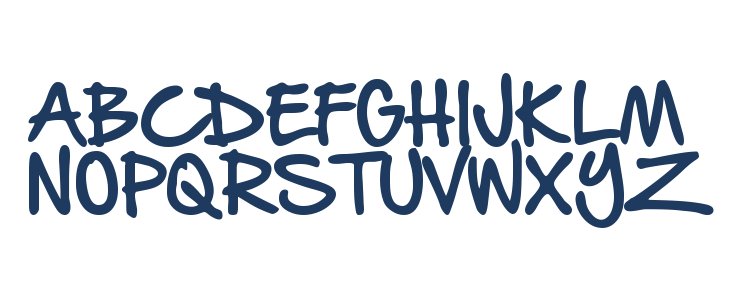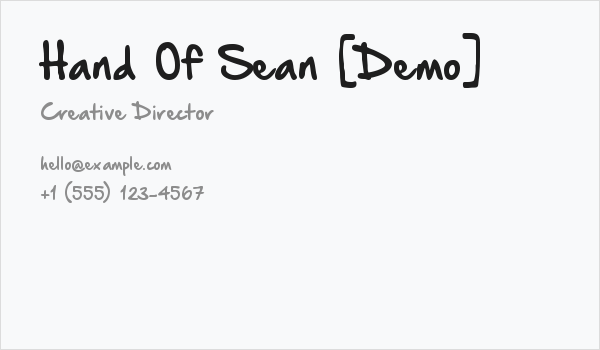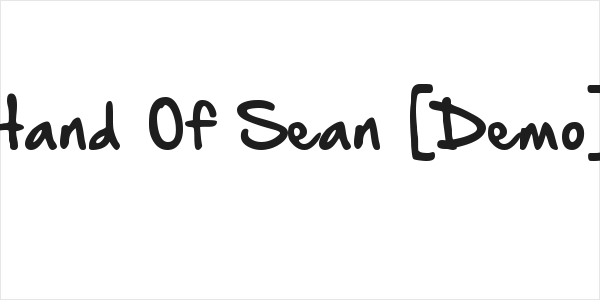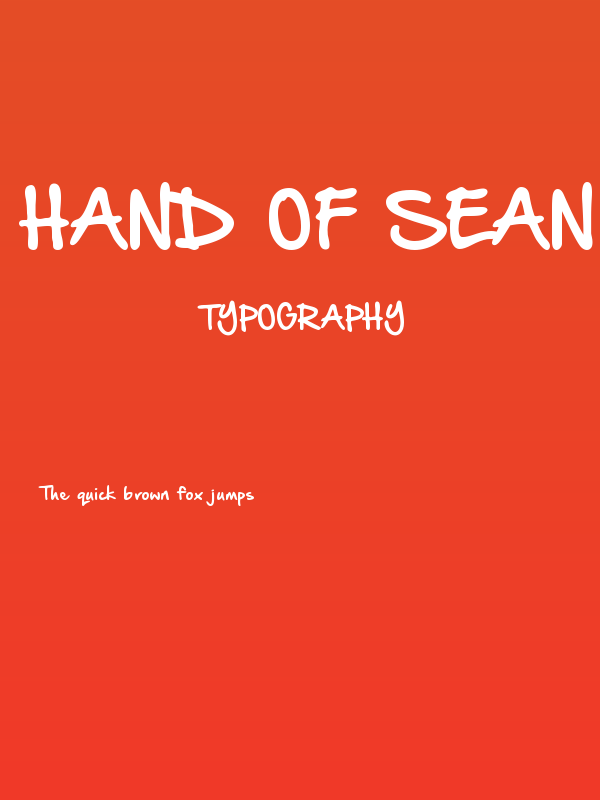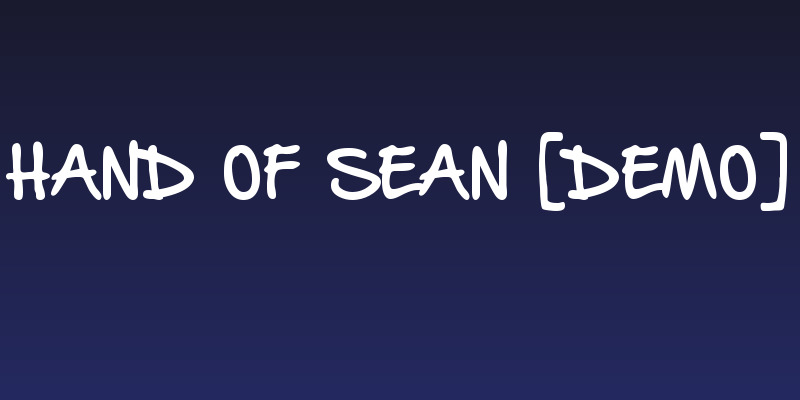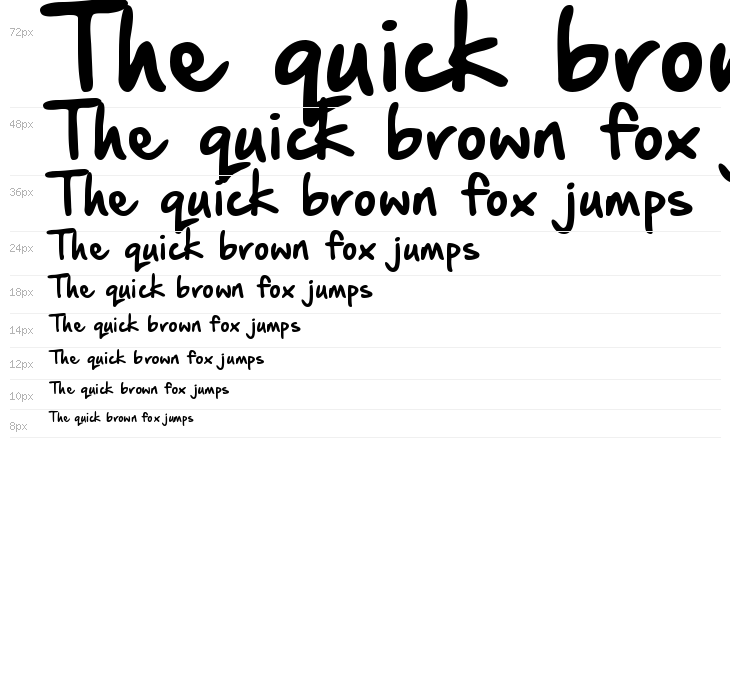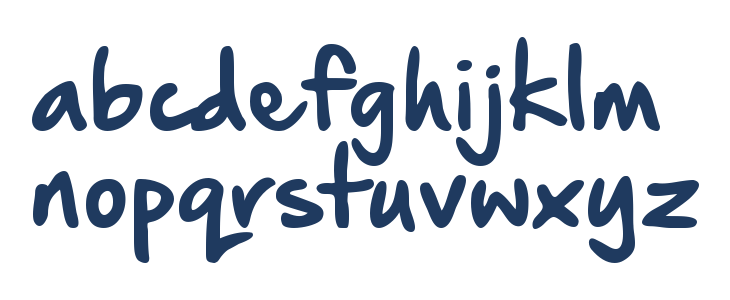
Hand Of Sean [Demo] Font
Hand Of Sean [Demo] Description
This font exudes a playful and casual handwritten style, characterized by its bold and rounded strokes. The letters are slightly slanted, giving a dynamic and informal feel. The uppercase letters are consistent in height, while the lowercase letters have a friendly, approachable appearance. Numbers and special characters maintain the same playful aesthetic, making the font versatile for various creative projects. The overall look is reminiscent of personal notes or doodles, adding a touch of personality and warmth to any design.